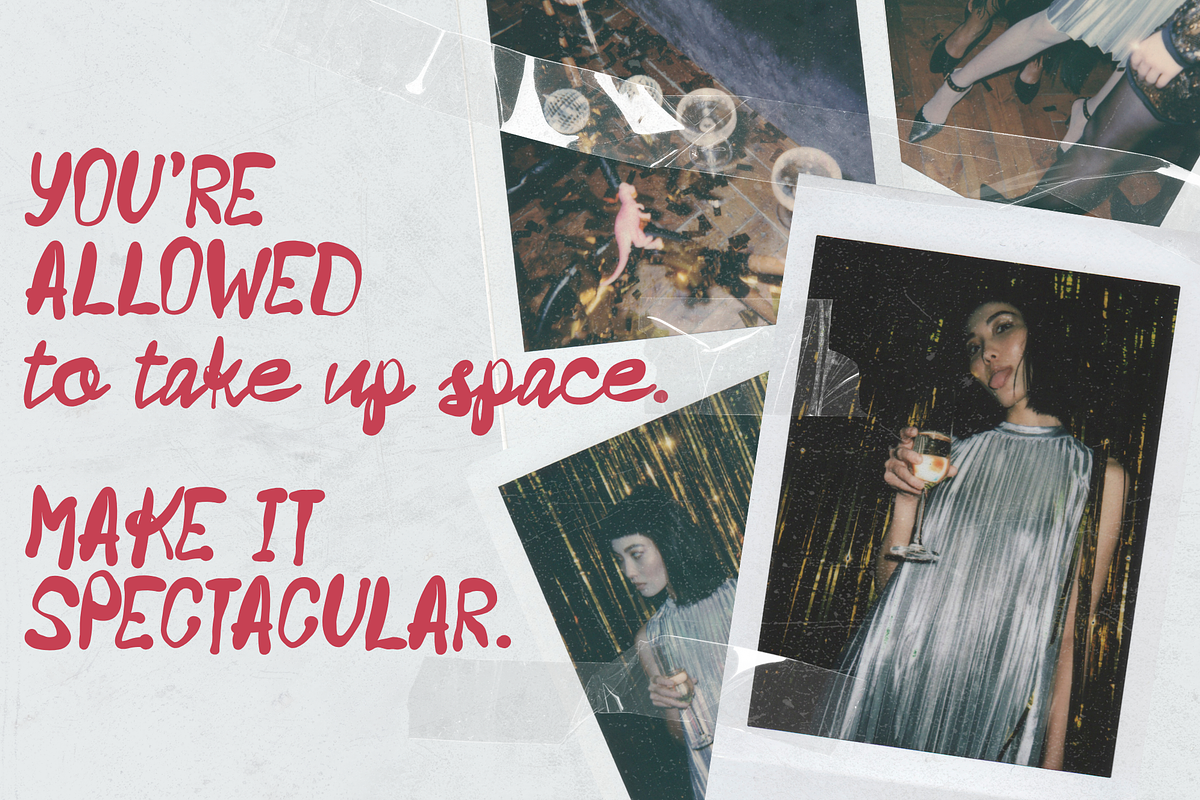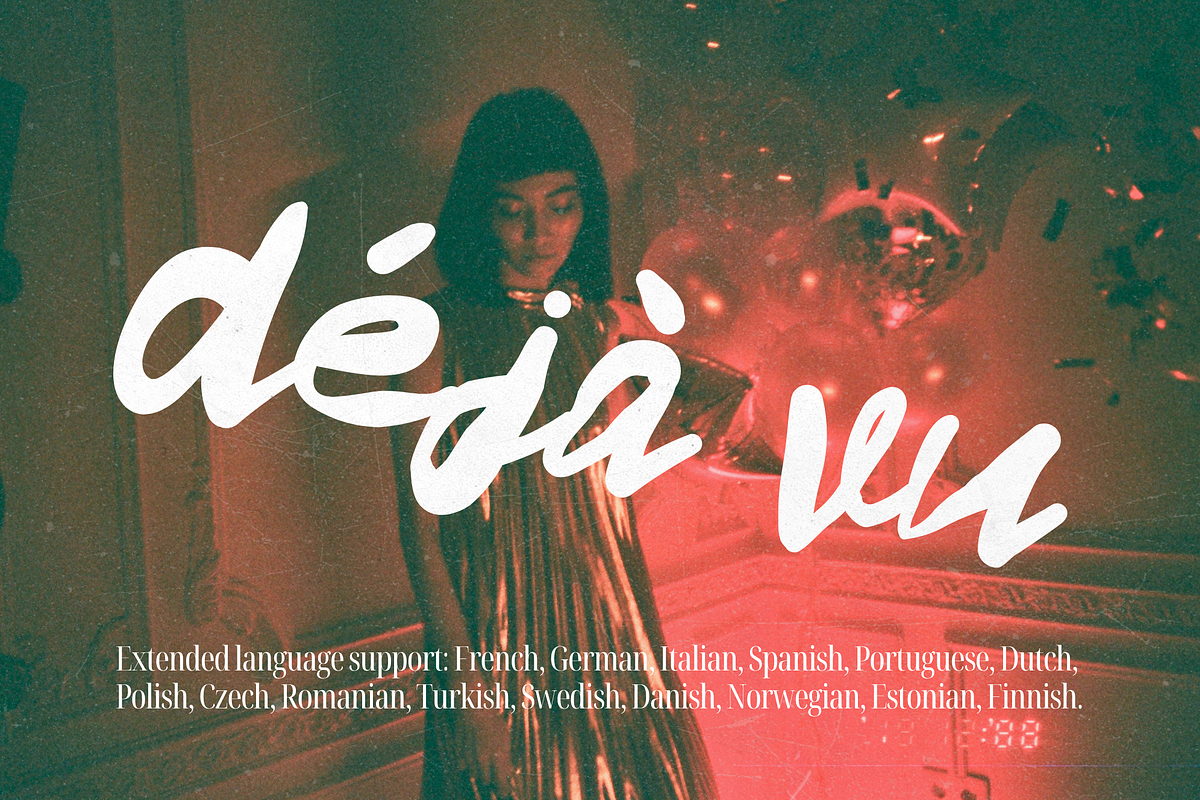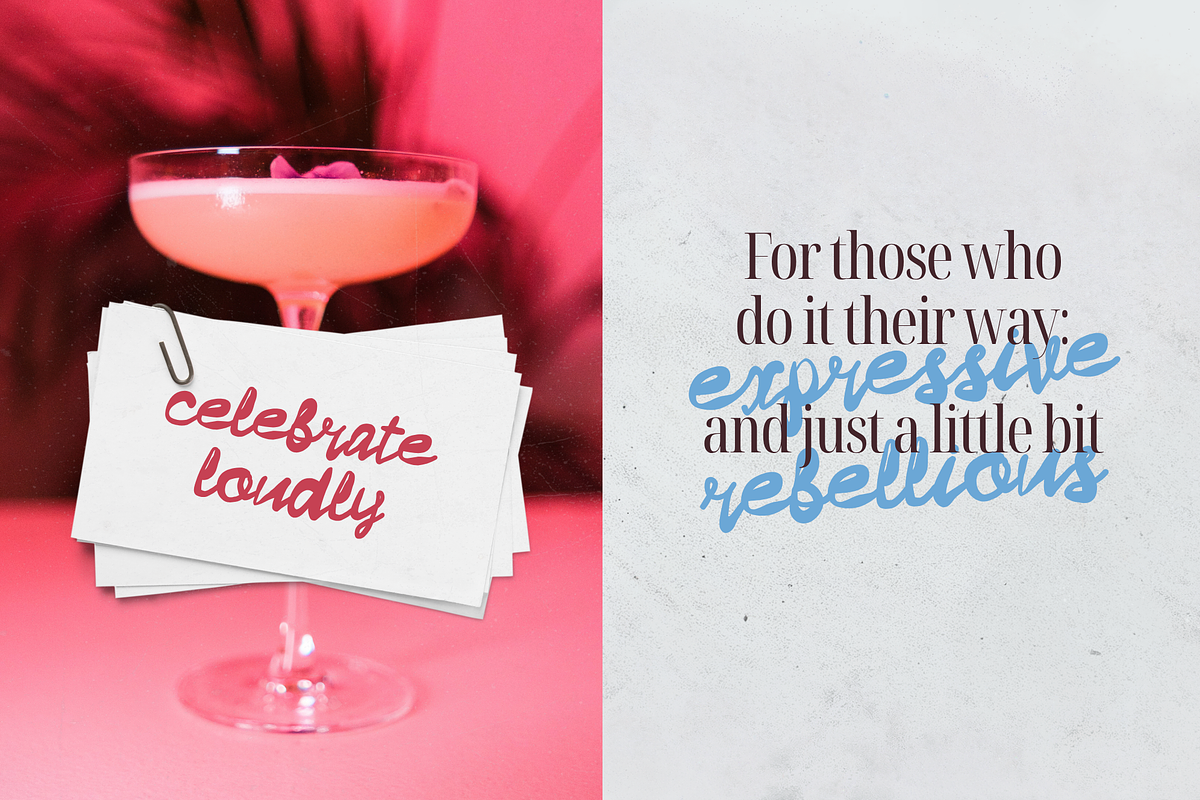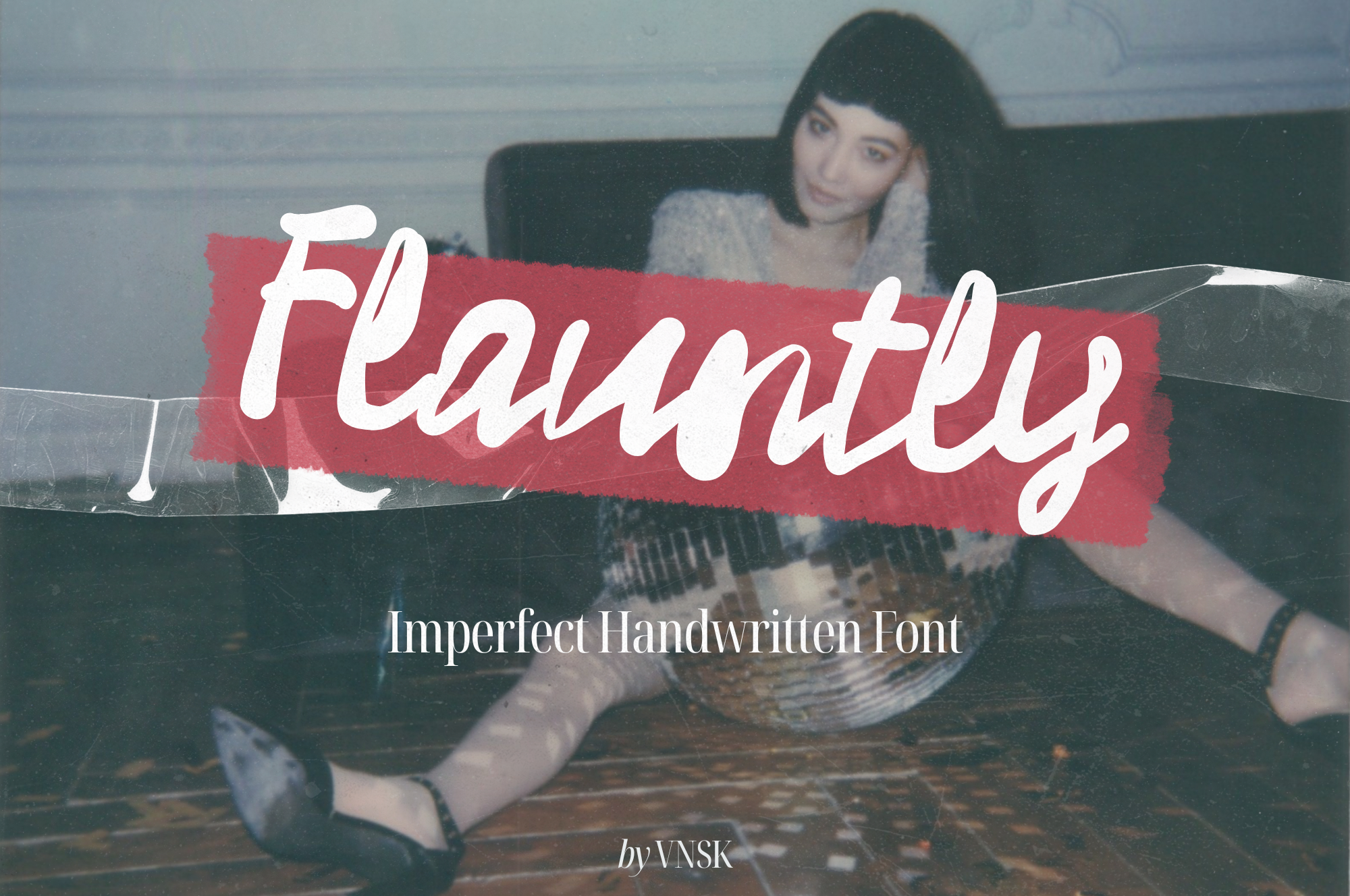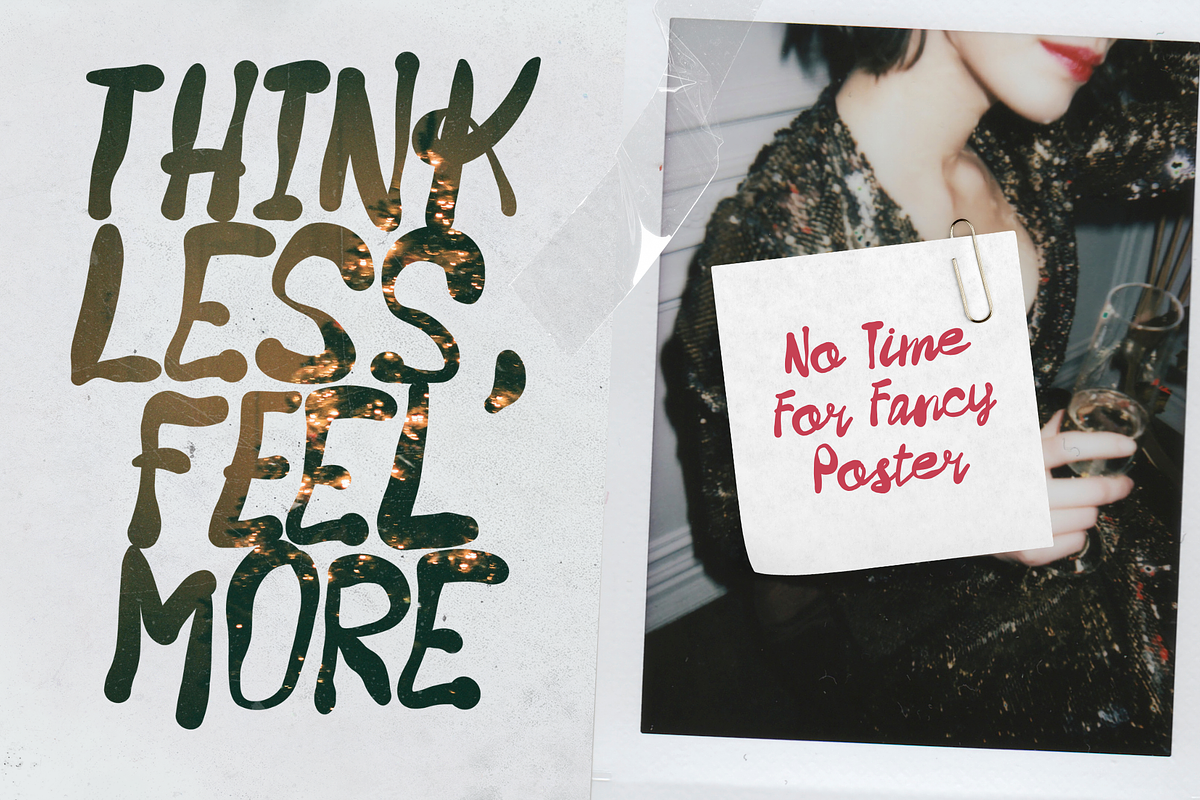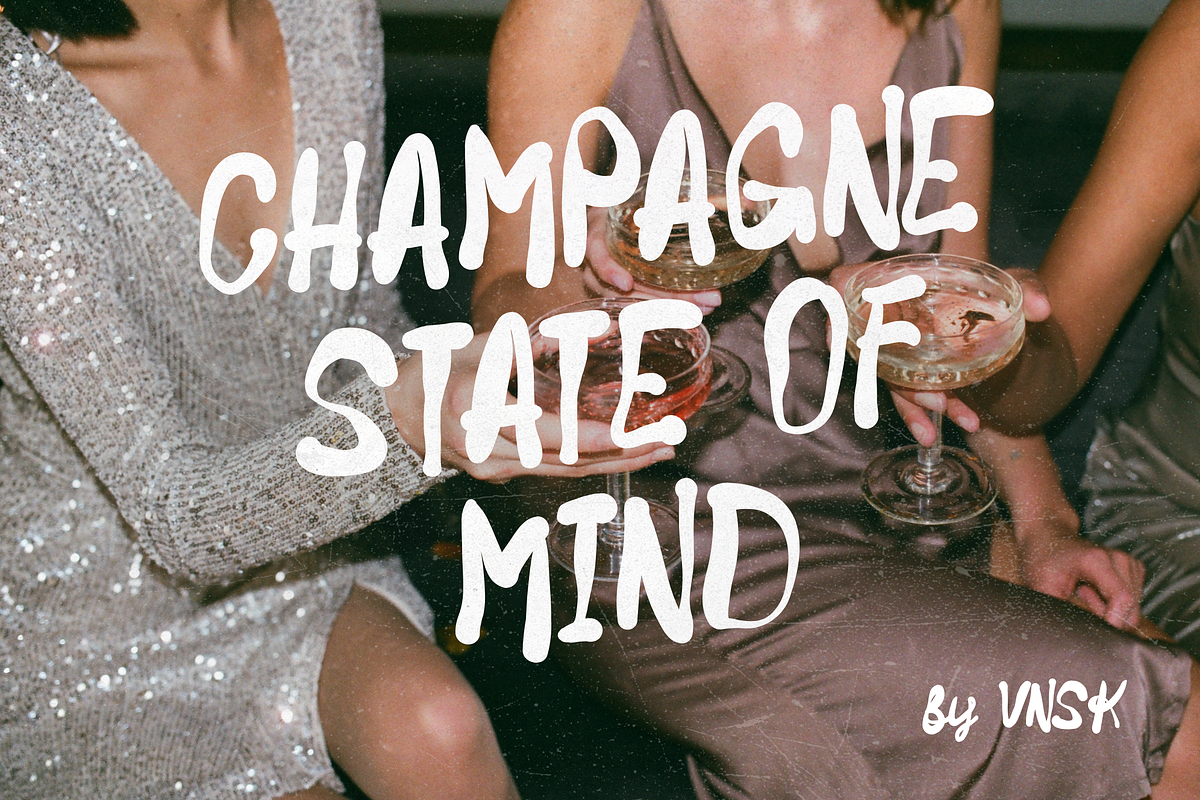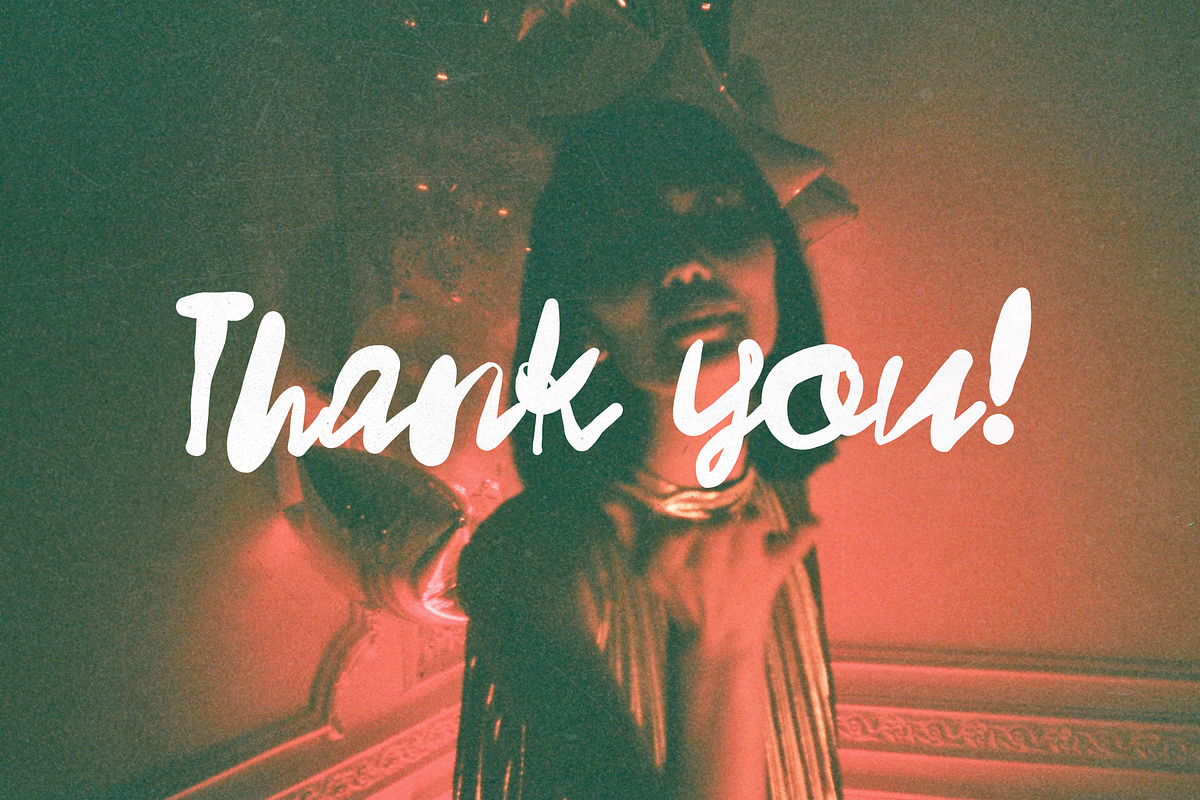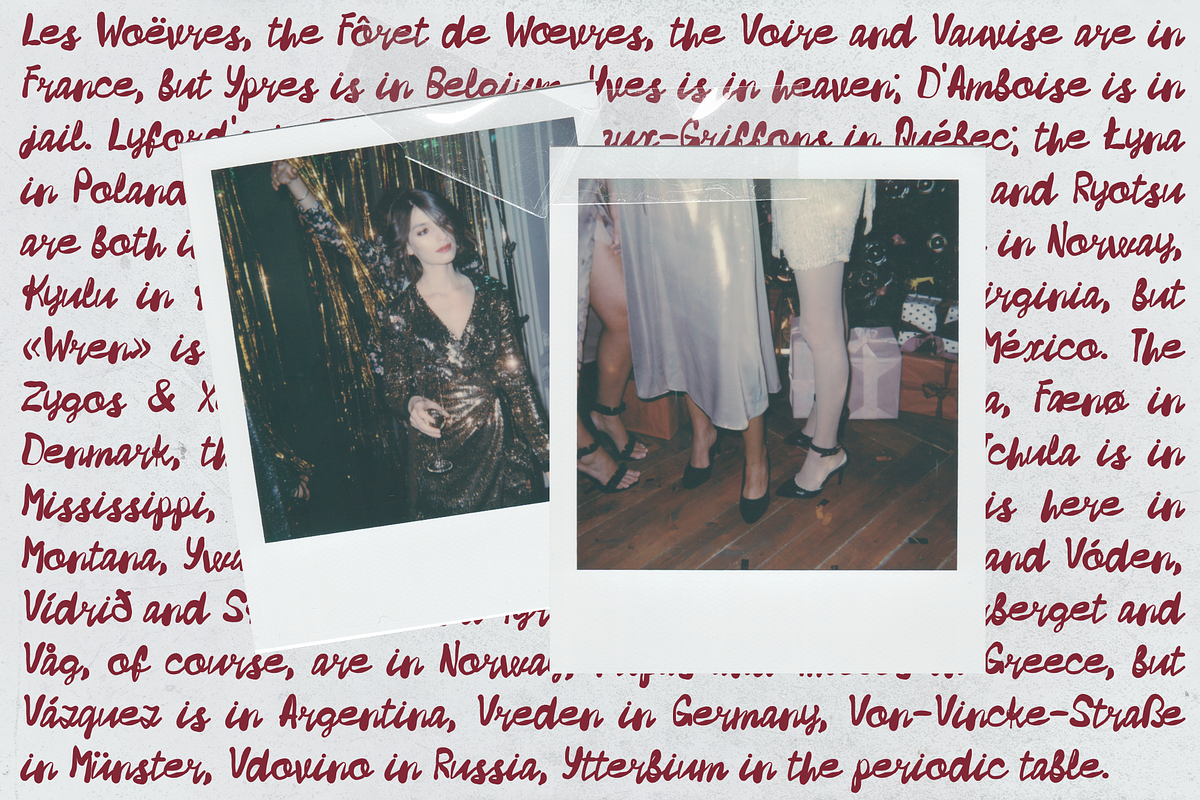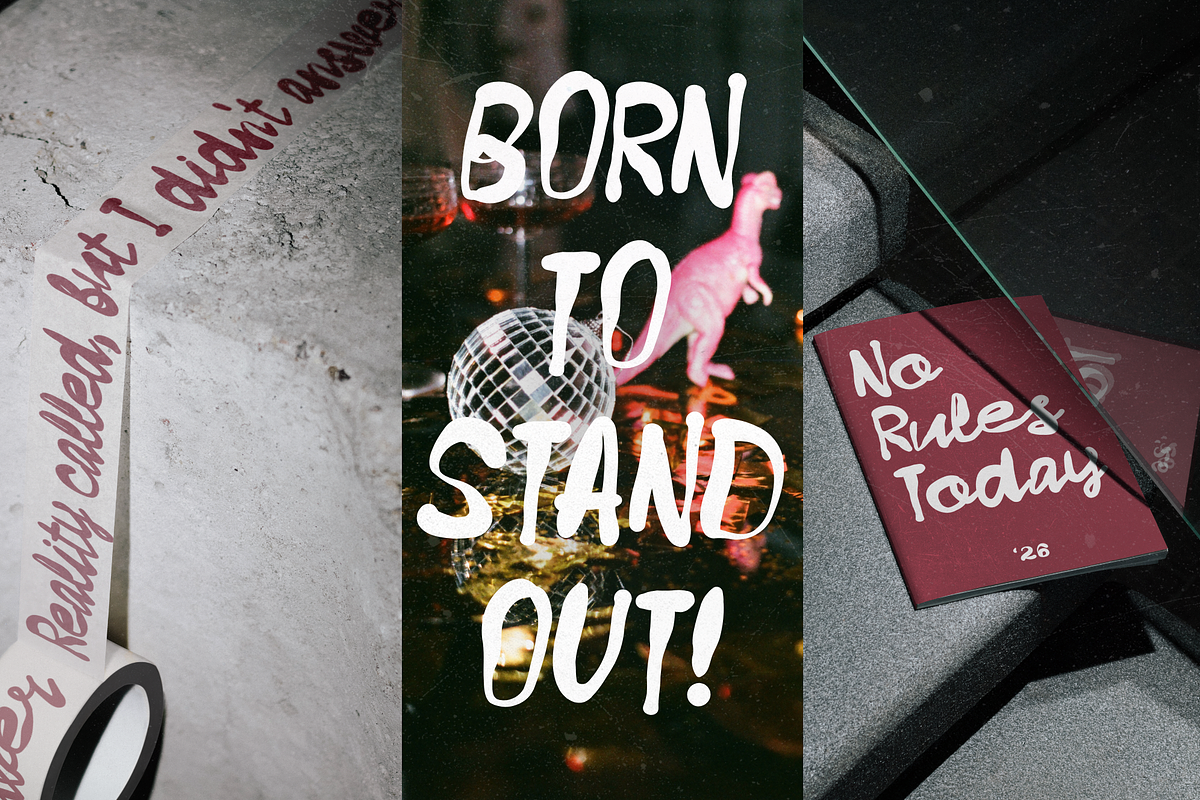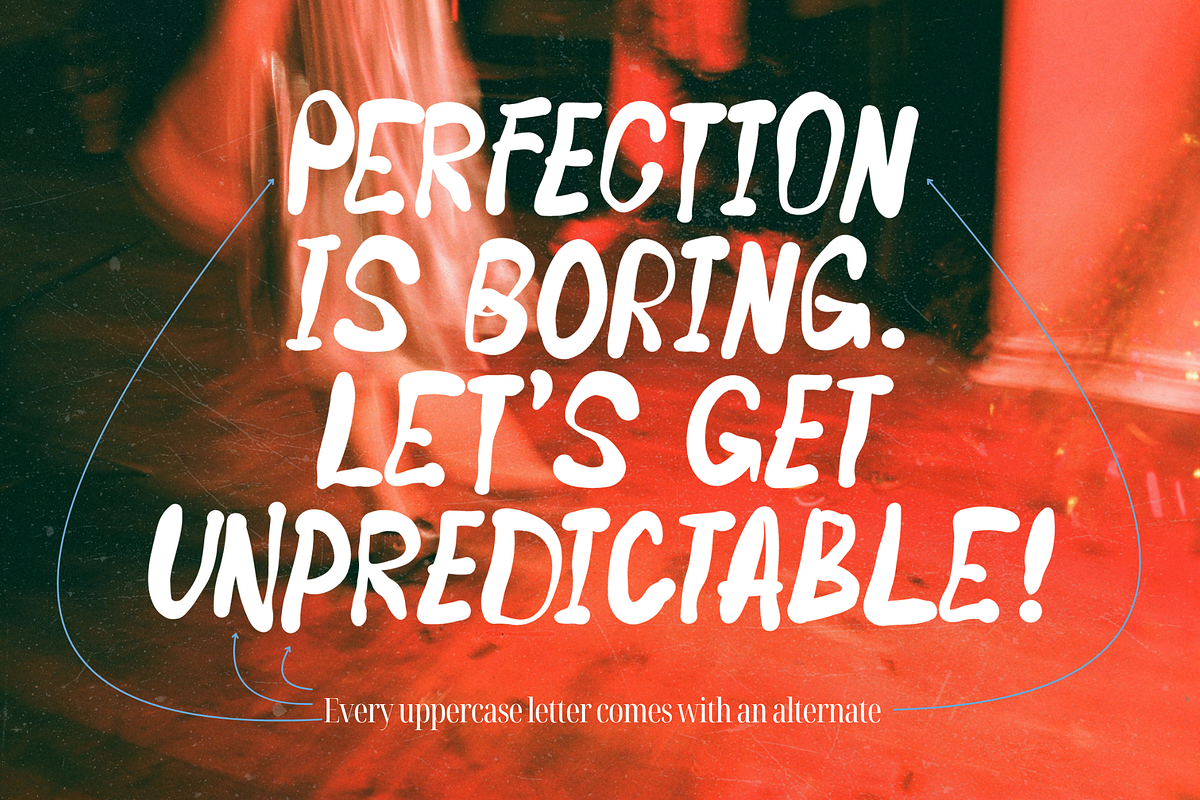
Flauntly: Imperfect Handwritten Font
Flauntly - Confidently Imperfect Handwritten Font
Meet Flauntly, a bold handwritten typeface that celebrates imperfection. With loose, uneven strokes and a natural rhythm, it feels raw, expressive, and full of character.
Perfect for branding, fashion projects, posters, packaging, collages, zines, and social media graphics, Flauntly brings a touch of attitude and authenticity to any design.
Use it when you want your typography to feel personal, stylish, and bold.
Uppercase & lowercase letters
Alternates for Uppercase letters
Fashion & lifestyle branding
Editorial and collage design
Social media templates
Posters, stickers & packaging
Any project that needs a hand-drawn, human touch
Because it’s imperfect in all the right ways!